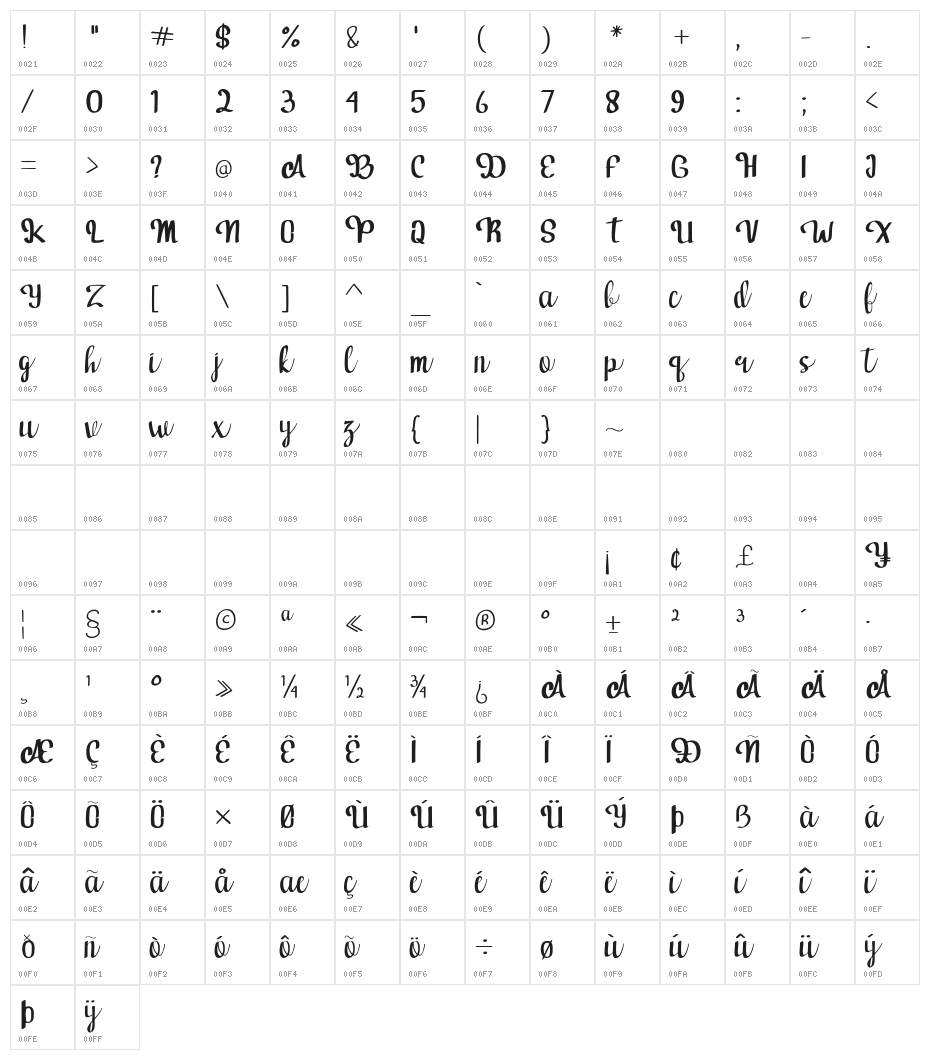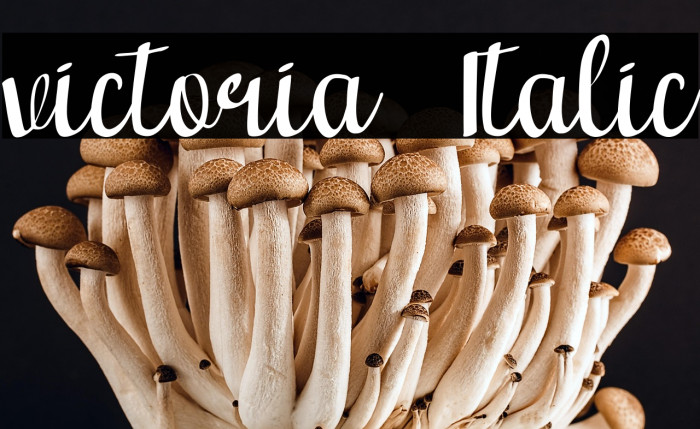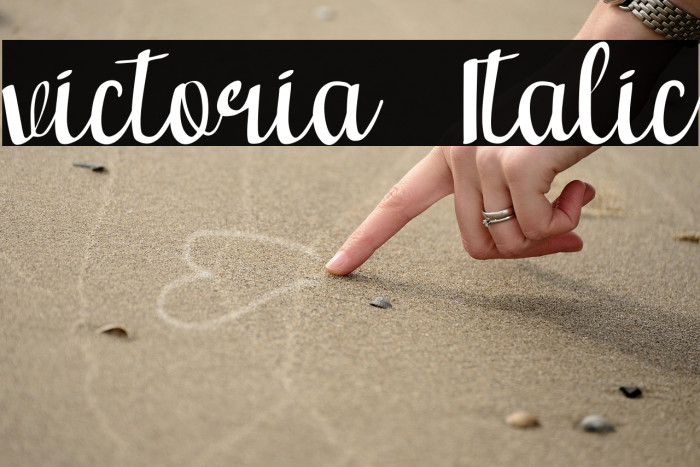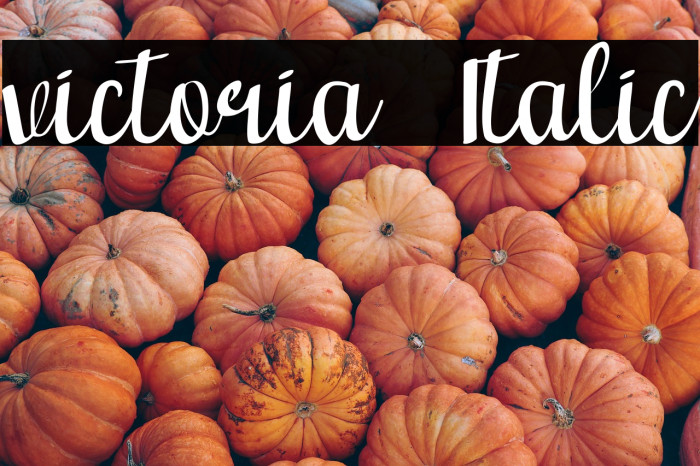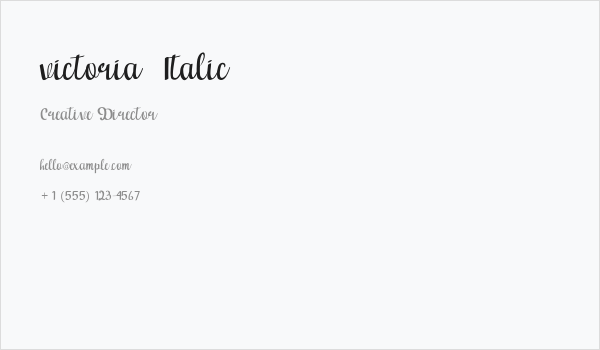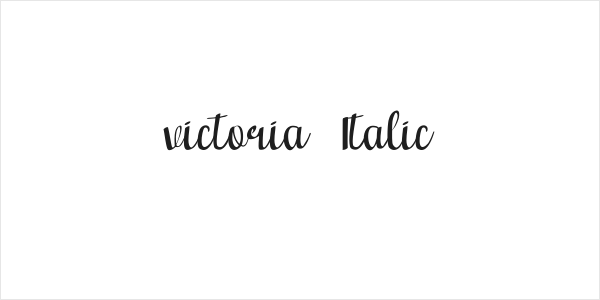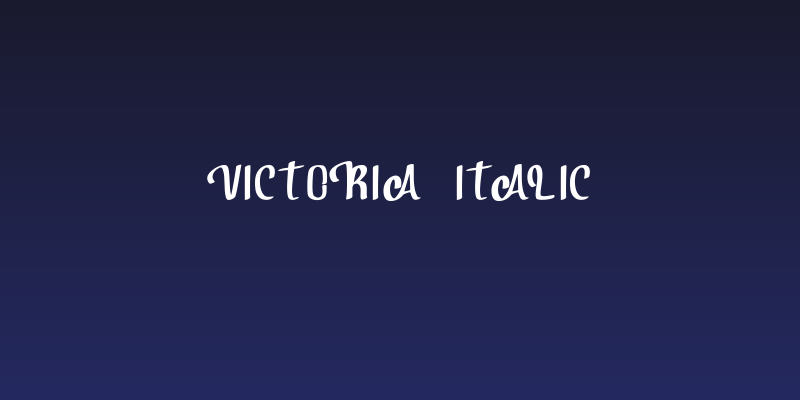
victoria Italic Font
victoria Italic Description
This font features a flowing, cursive style with a distinct italic slant, giving it an elegant and dynamic appearance. The uppercase letters are bold and prominent, while the lowercase letters maintain a consistent fluidity, enhancing readability. The numerals are well-proportioned, matching the overall aesthetic of the alphabet. Special characters are designed with the same attention to detail, ensuring they blend seamlessly with the rest of the font. The strokes are moderately thick, providing a balanced contrast that adds to the font's legibility and visual appeal.
| Overall Style | Elegant, Decorative |
| Proposed Projects | Ideal for wedding invitations, greeting cards, branding projects, and elegant logo designs. |